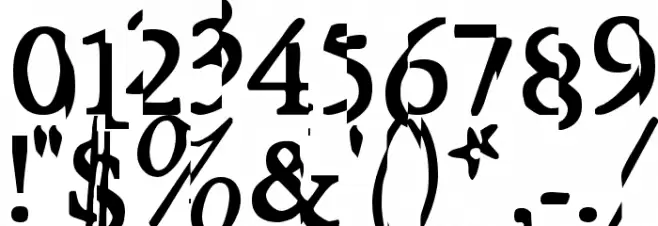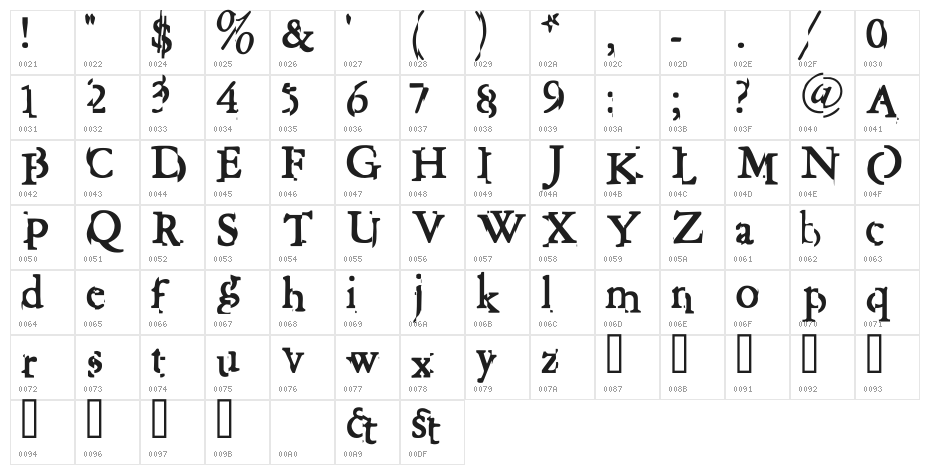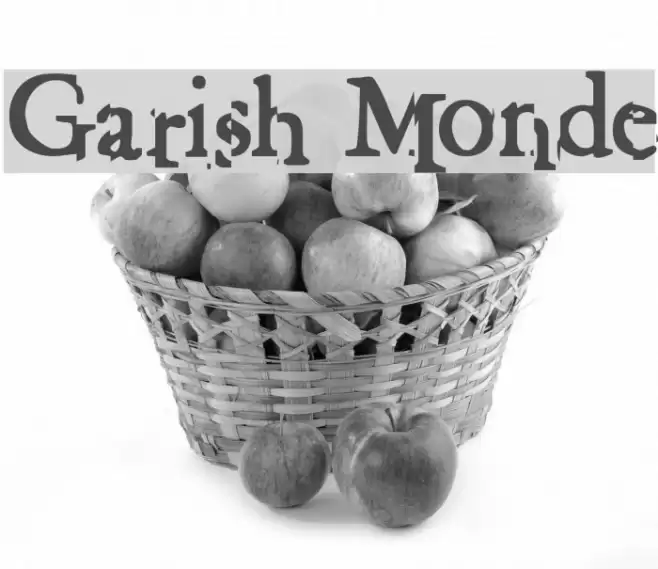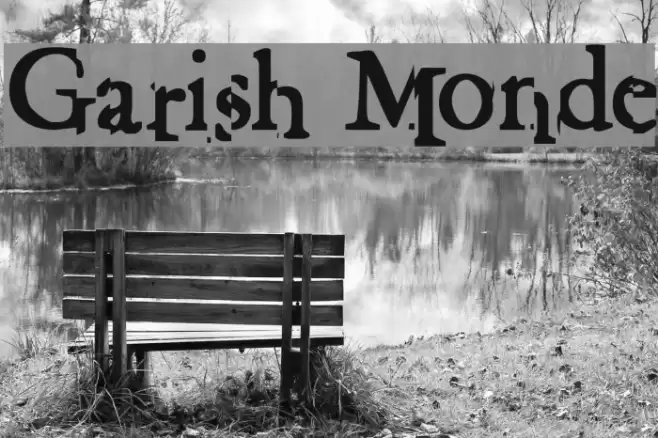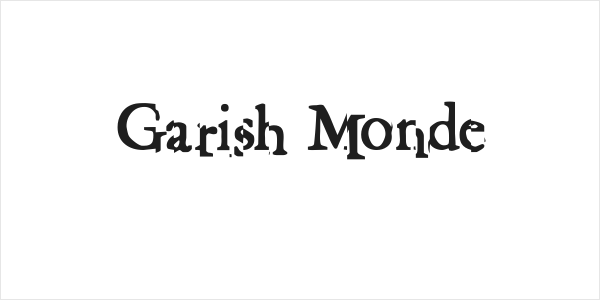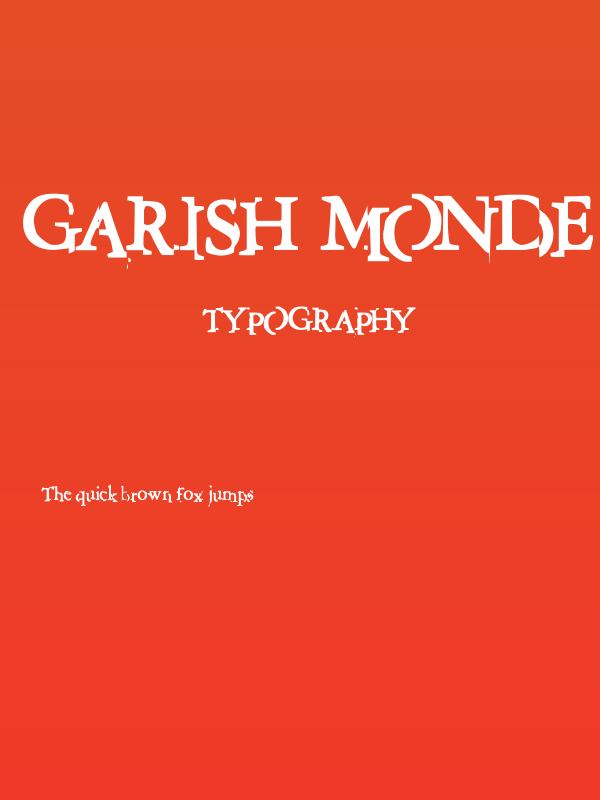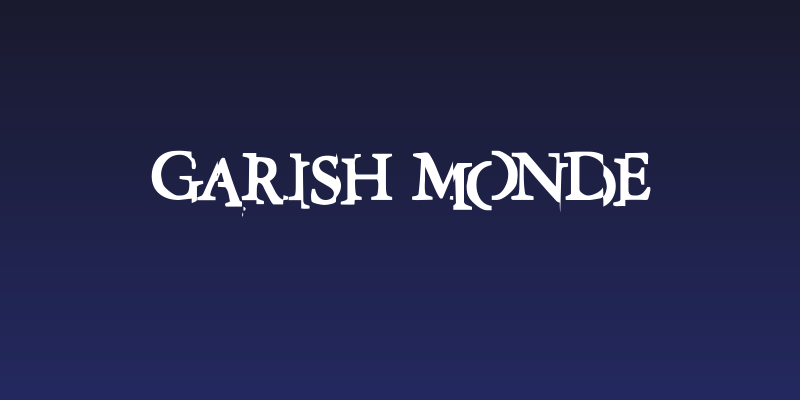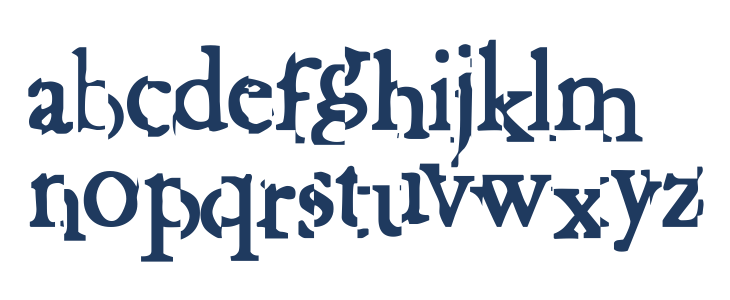
Garish Monde Font
Garish Monde Description
This font features a bold and dramatic style with a distinct, edgy appearance. The characters are designed with sharp angles and irregular edges, giving them a unique, almost distressed look. The uppercase letters are particularly striking, with exaggerated serifs and a strong presence. The lowercase letters maintain the same boldness, creating a cohesive and impactful visual style. Numbers and special characters follow the same design principles, ensuring consistency across all elements. This font's high contrast in stroke thickness adds to its dramatic effect, making it stand out in any design.
| Proposed Projects | Ideal for poster designs, album covers, branding for edgy or alternative products, and any project requiring a bold statement. |